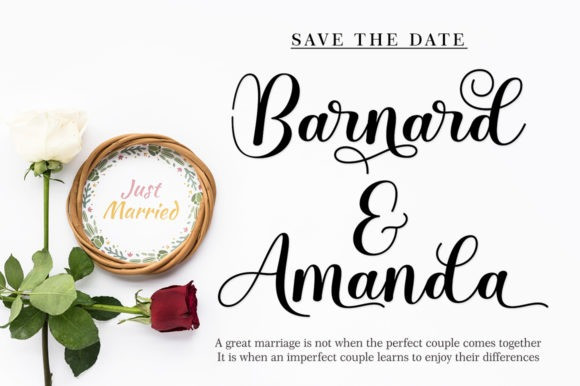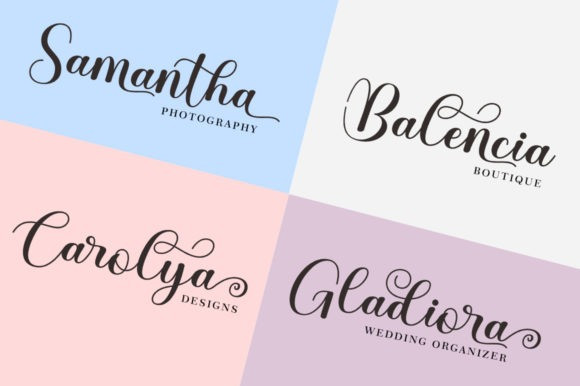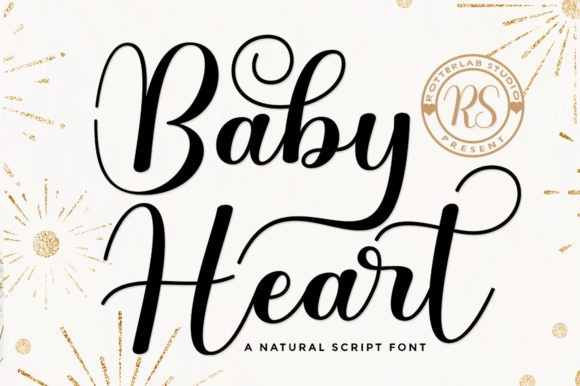
Baby Heart Font
Baby Heart Calligraphy Font is a lovely and timeless handwritten font. It is the best choice for creating eye catching logos, branding and quotes. Every letter has a unique and beautiful touch, which will make your design come alive!